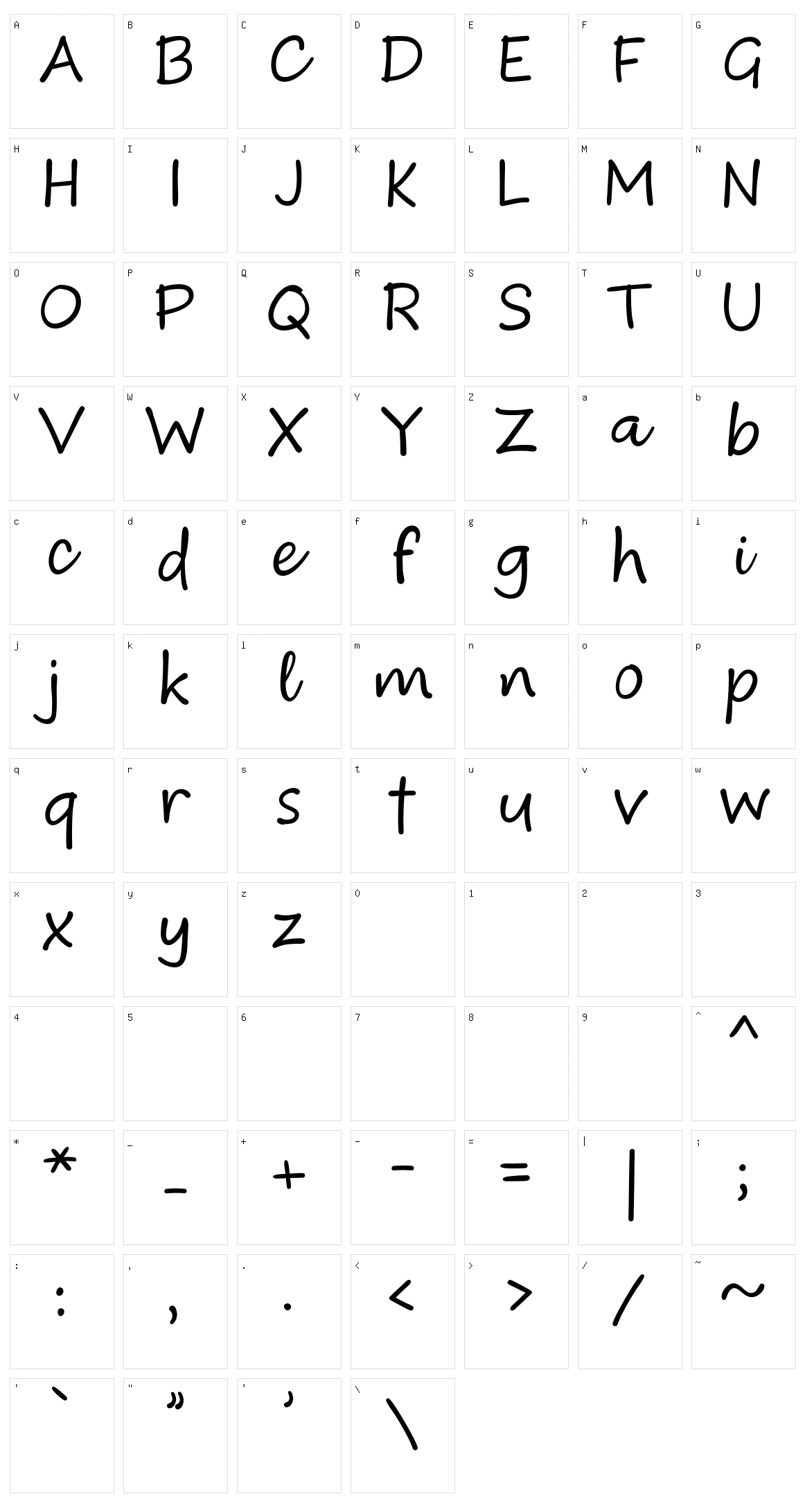
The free font Calebor is carefully designed by Nico Muslib, showcasing a thoughtful balance of creativity and usability and falls under the Script font style. When you download the ZIP file, it contains only 46.97 KB of font files, making it lightweight and quick to download. Please review the license details below to understand permitted usage and distribution rights. If license information is not available, we recommend using this font for personal projects only or contacting the author directly for commercial usage permissions.